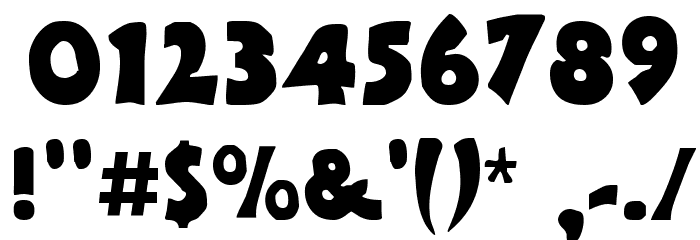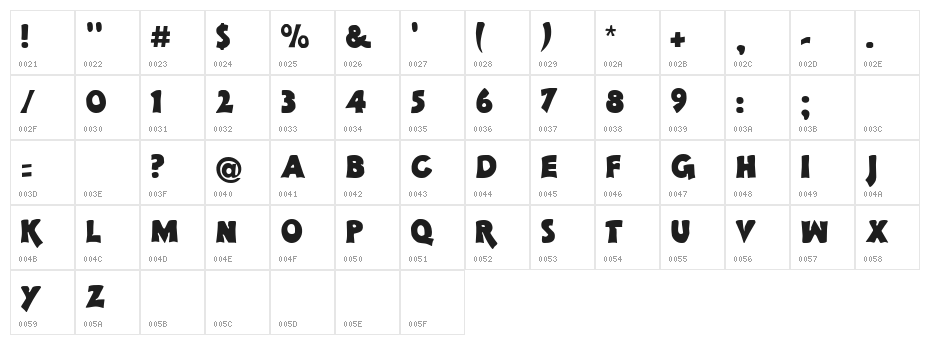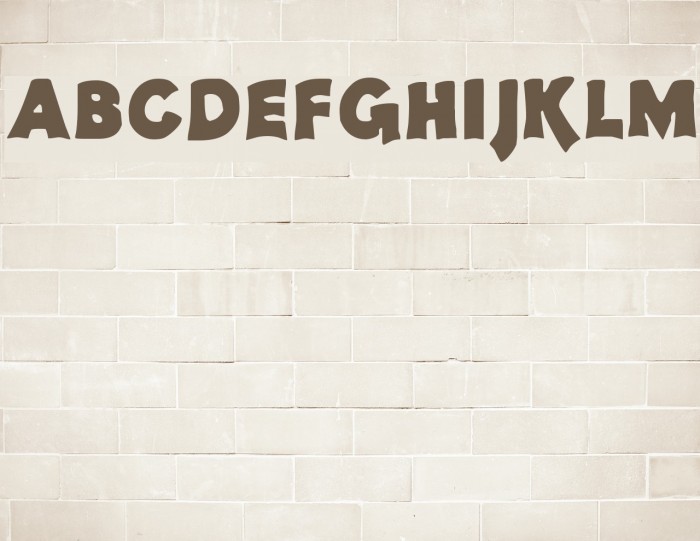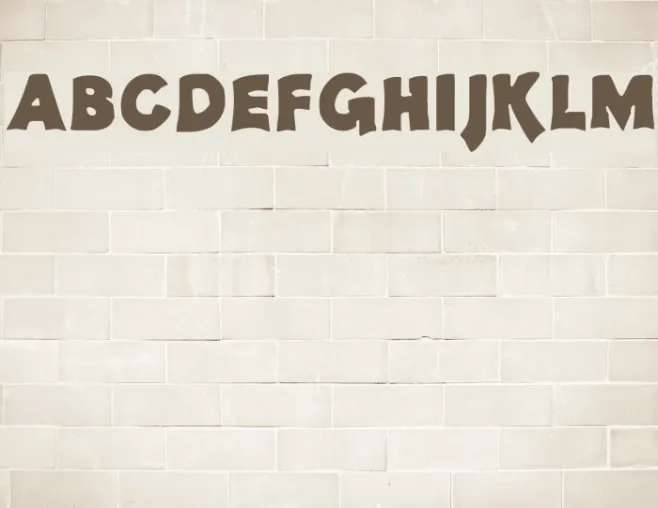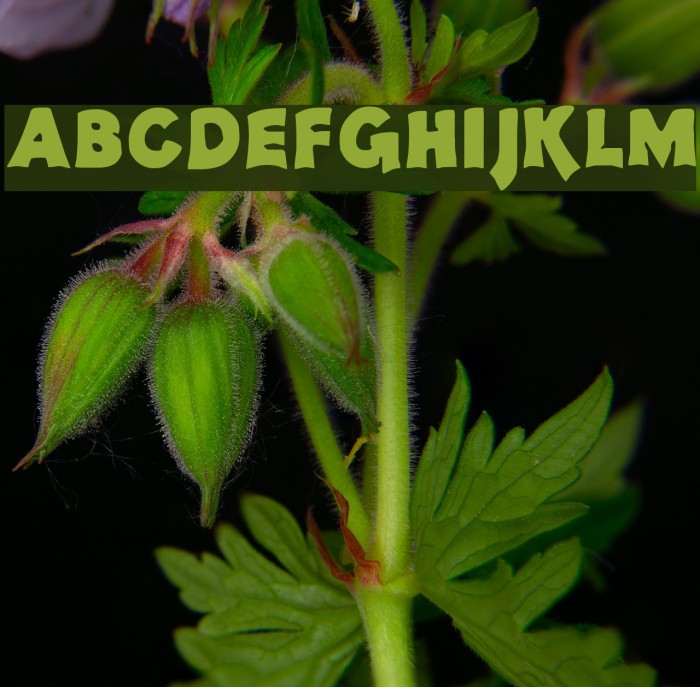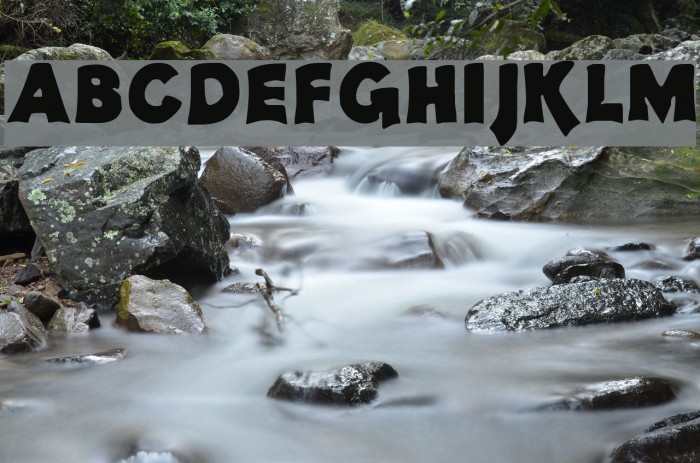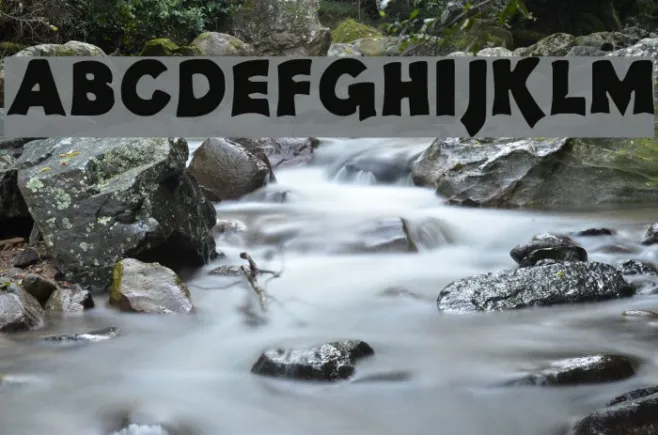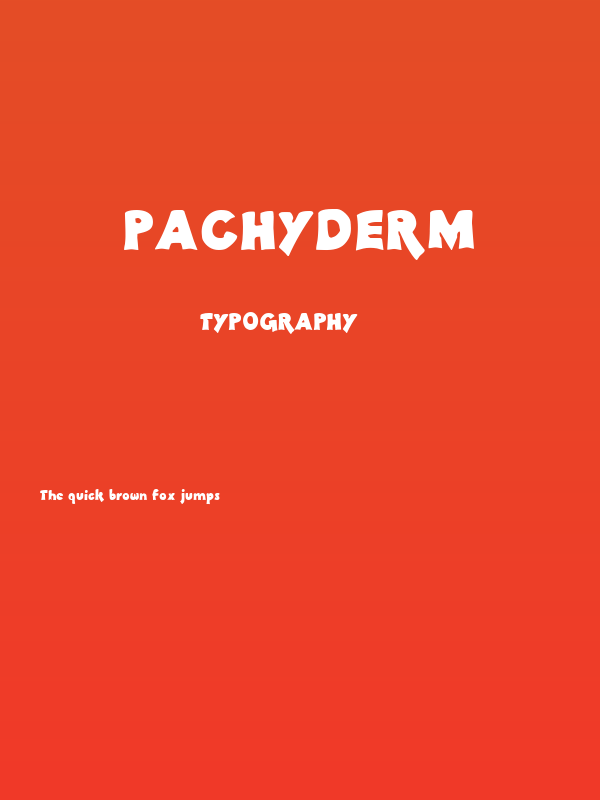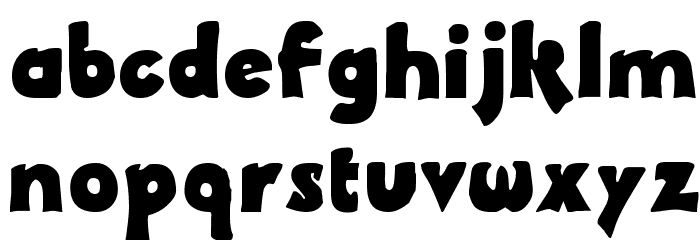
Pachyderm Font
Pachyderm Description
This font features a bold and playful design, characterized by its thick, uneven strokes and whimsical curves. The letters have a hand-drawn quality, with exaggerated serifs and a slightly irregular baseline that adds to its charm. The uppercase letters are robust and commanding, while the lowercase letters maintain a consistent style with a touch of quirkiness. The numbers and special characters follow the same playful aesthetic, making the font suitable for creative and informal applications. Its unique style makes it stand out, perfect for projects that require a fun and engaging visual element.